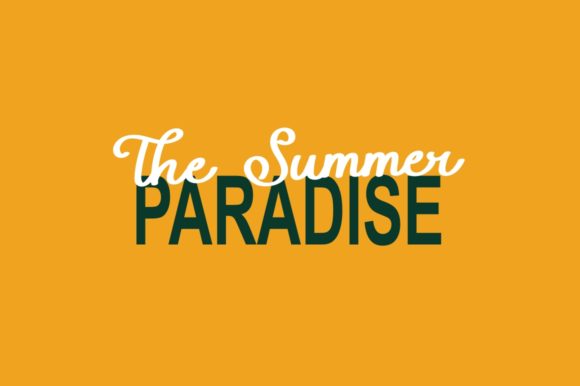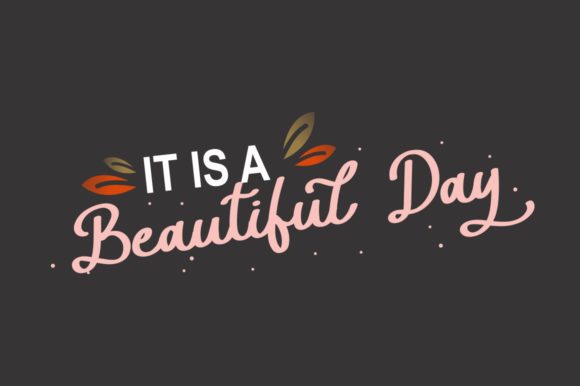
Sunday in Adelaide Font
db-ku.com - Script & Handwritten -- Sunday in Adelaide is a sweet brushed handwritten font, featuring a lovely retro style. This font reads as strong, confident, and dynamic and can add tons of nostalgic character to your designs.